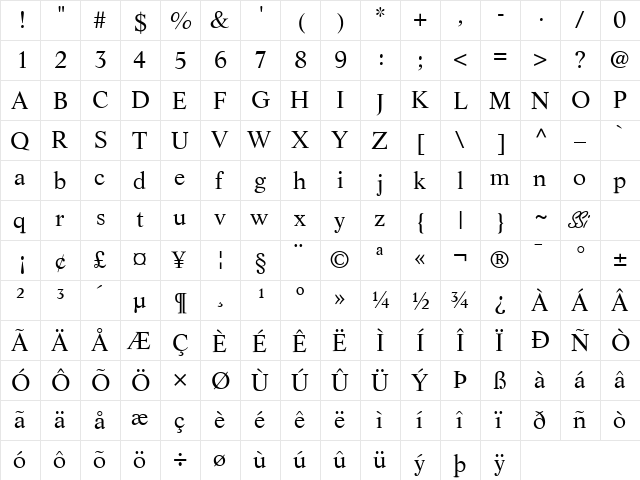
Resource SSi Regular
Design Context for Resource SSi Typeface
Resource SSi is a composed and adaptable typeface that performs quietly and consistently across a wide range of design contexts.